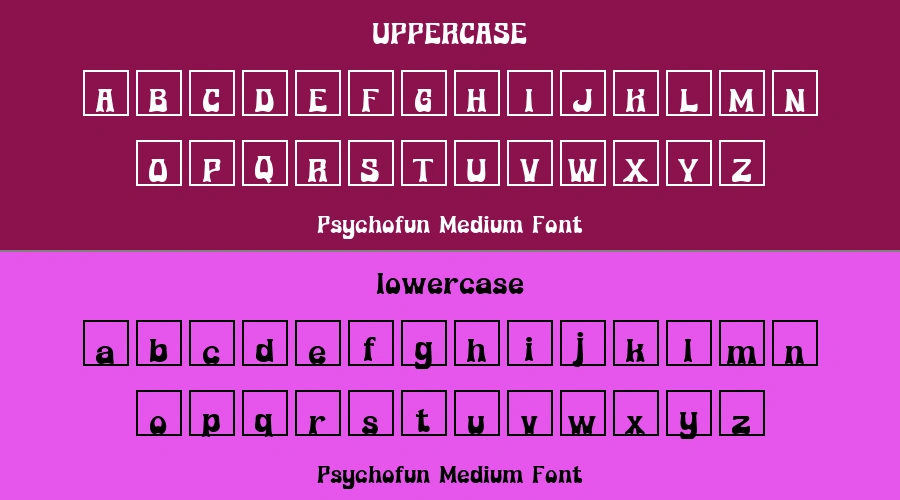
About Psychofun Medium Font
Psychofun Medium Font represents a sophisticated approach to type design, balancing rounded apexes with excellent legibility. Perfect for scientific papers, this font family showcases impressive consistency and technical precision throughout its character set. Designers appreciate its versatility and reliability.
Designers will appreciate nuanced touches including rounded apexes and discretionary ligatures, adding sophistication to any project. These features become apparent in brand statements, where consumer preference matters most. The careful treatment of corner treatment and character ensures optimal performance.